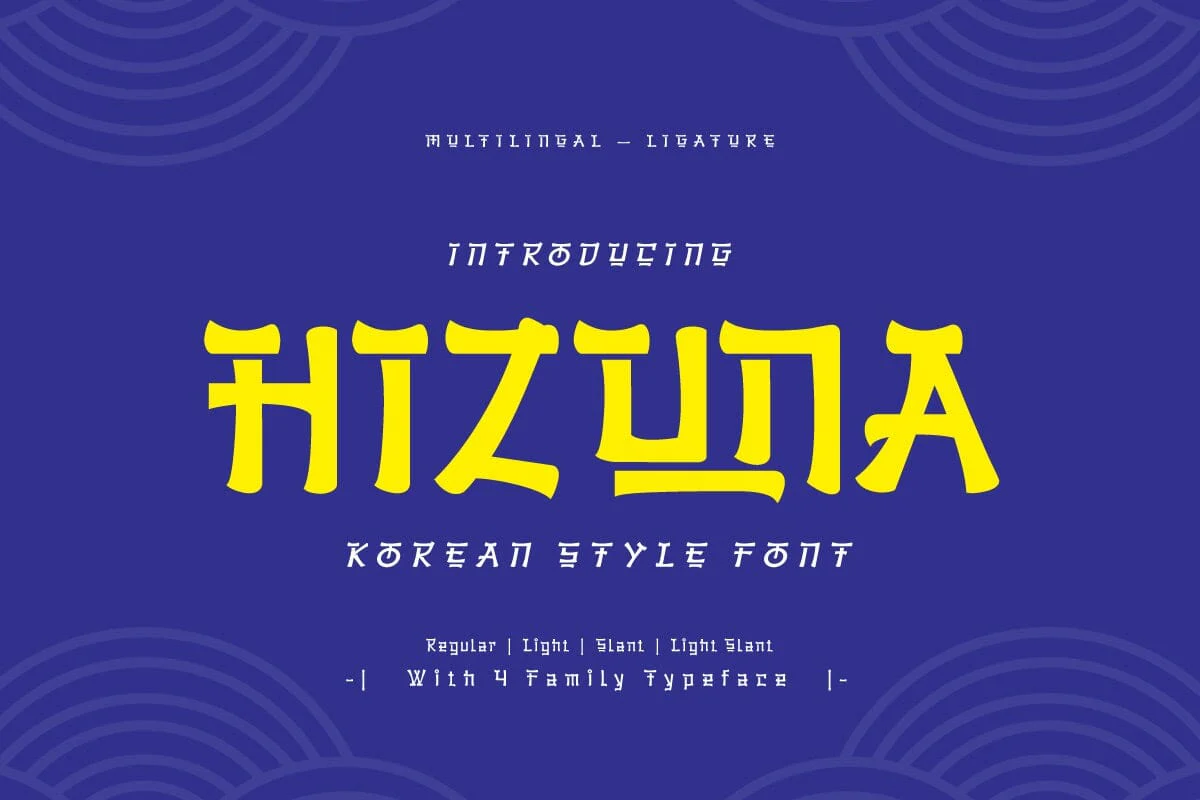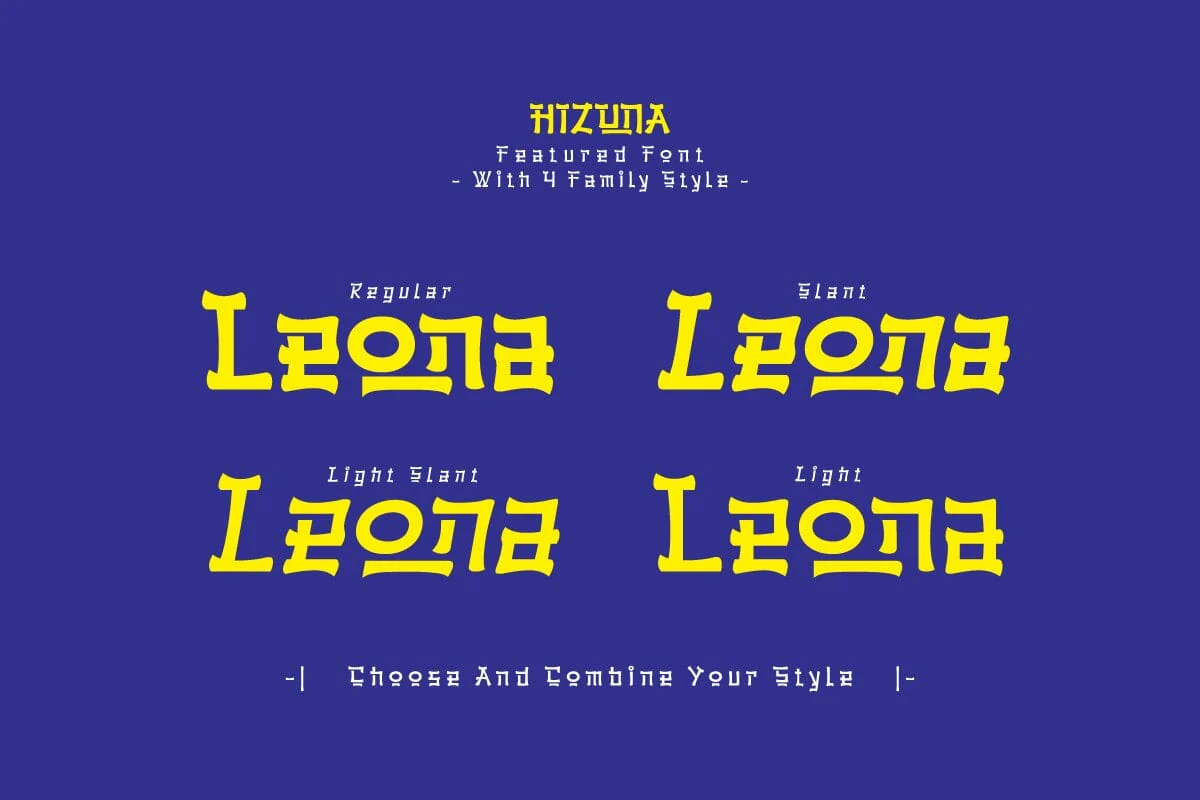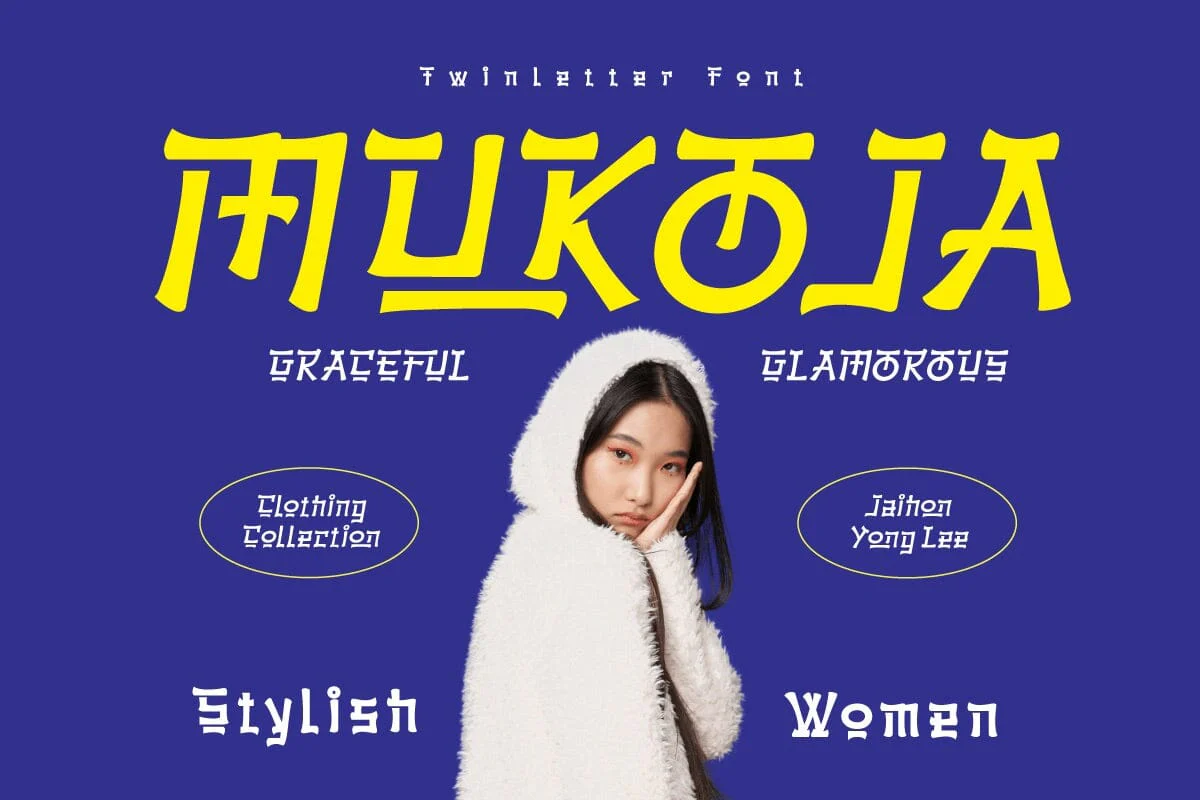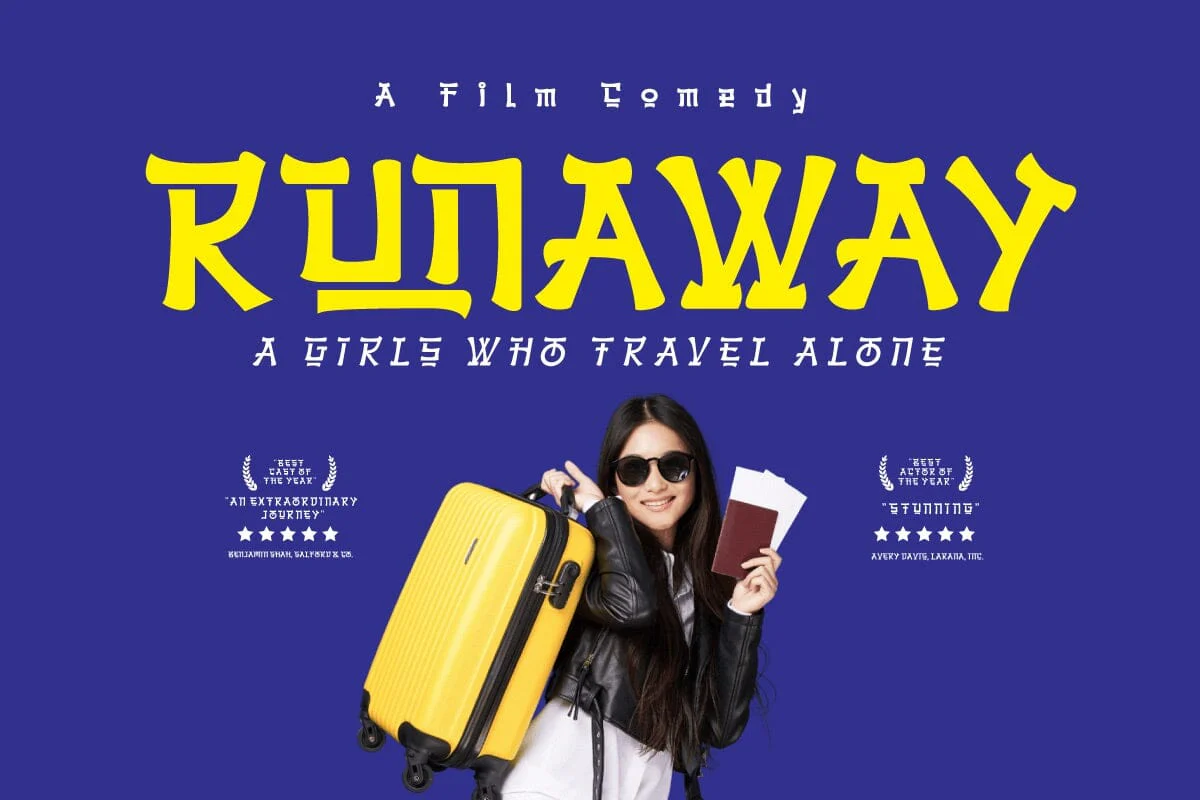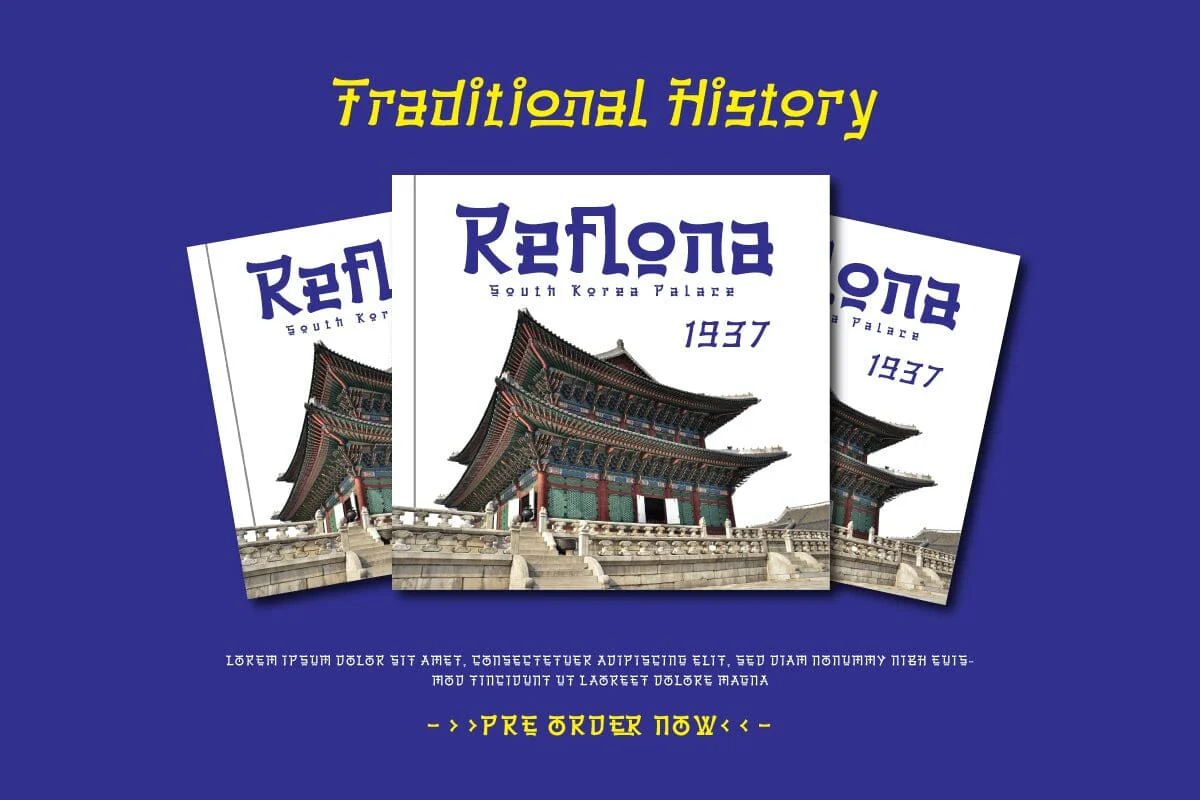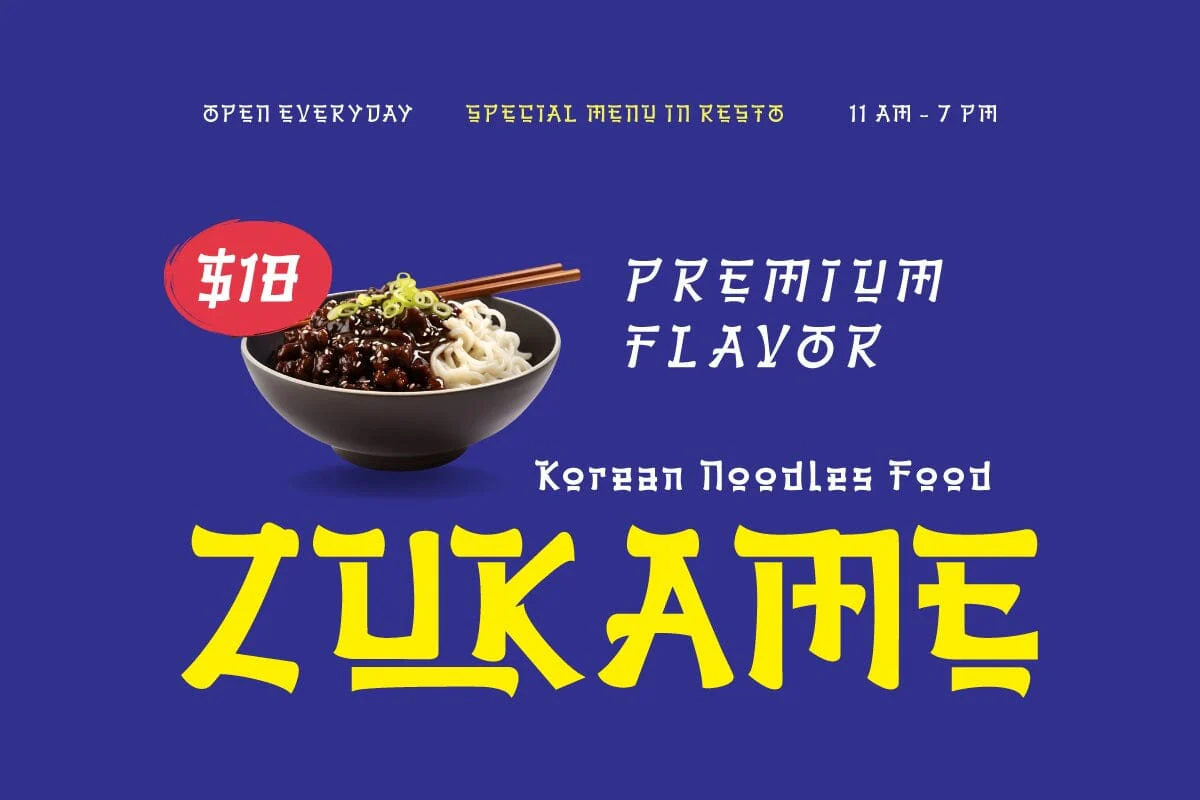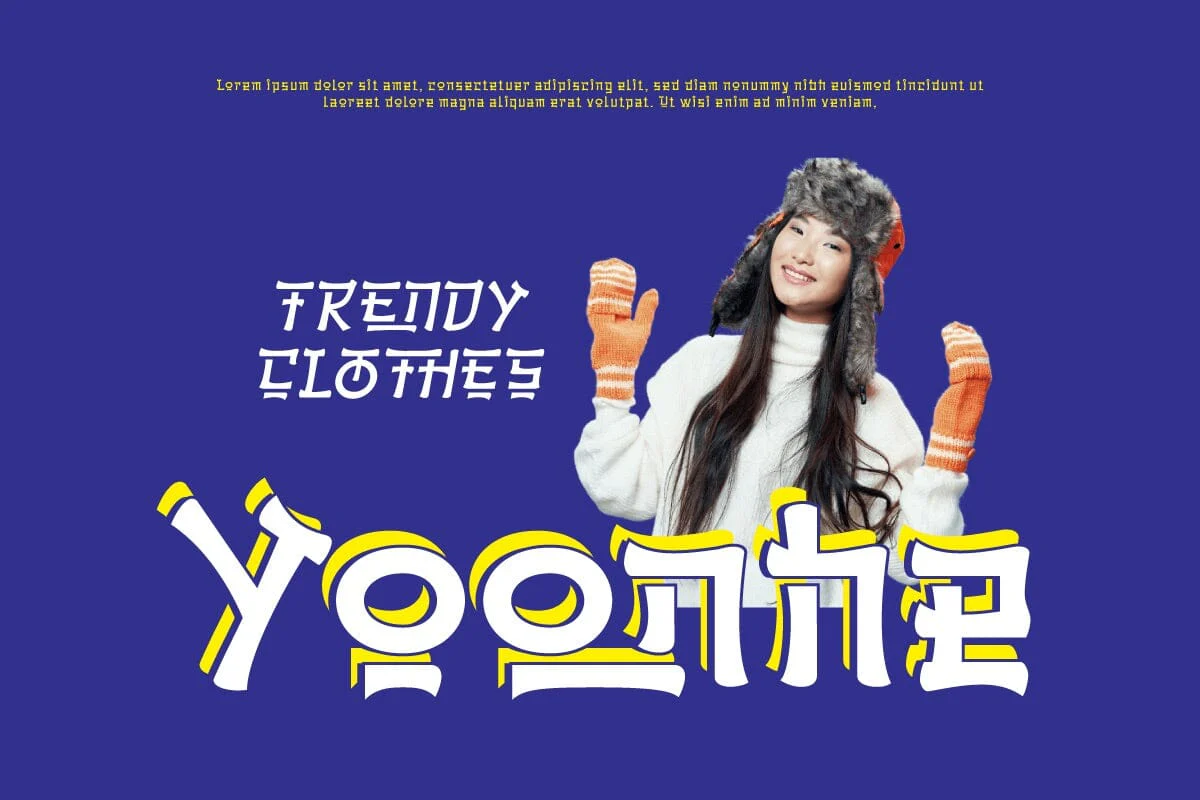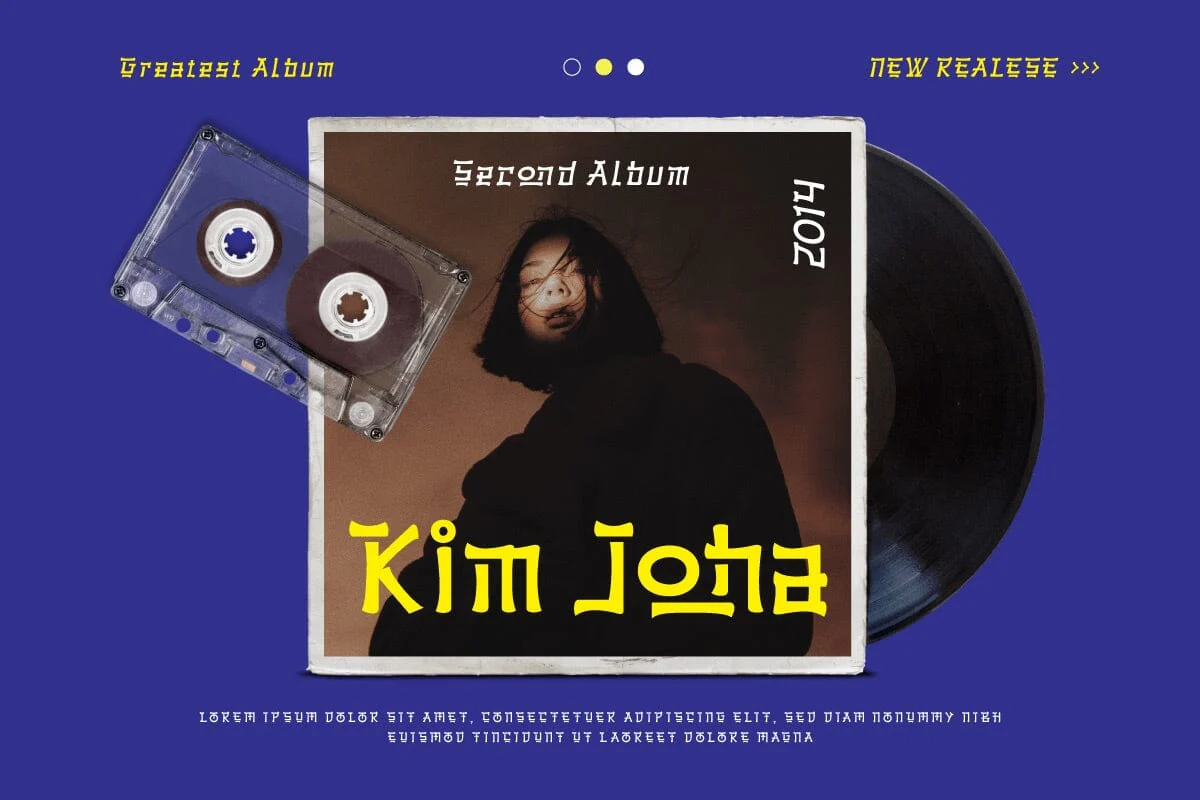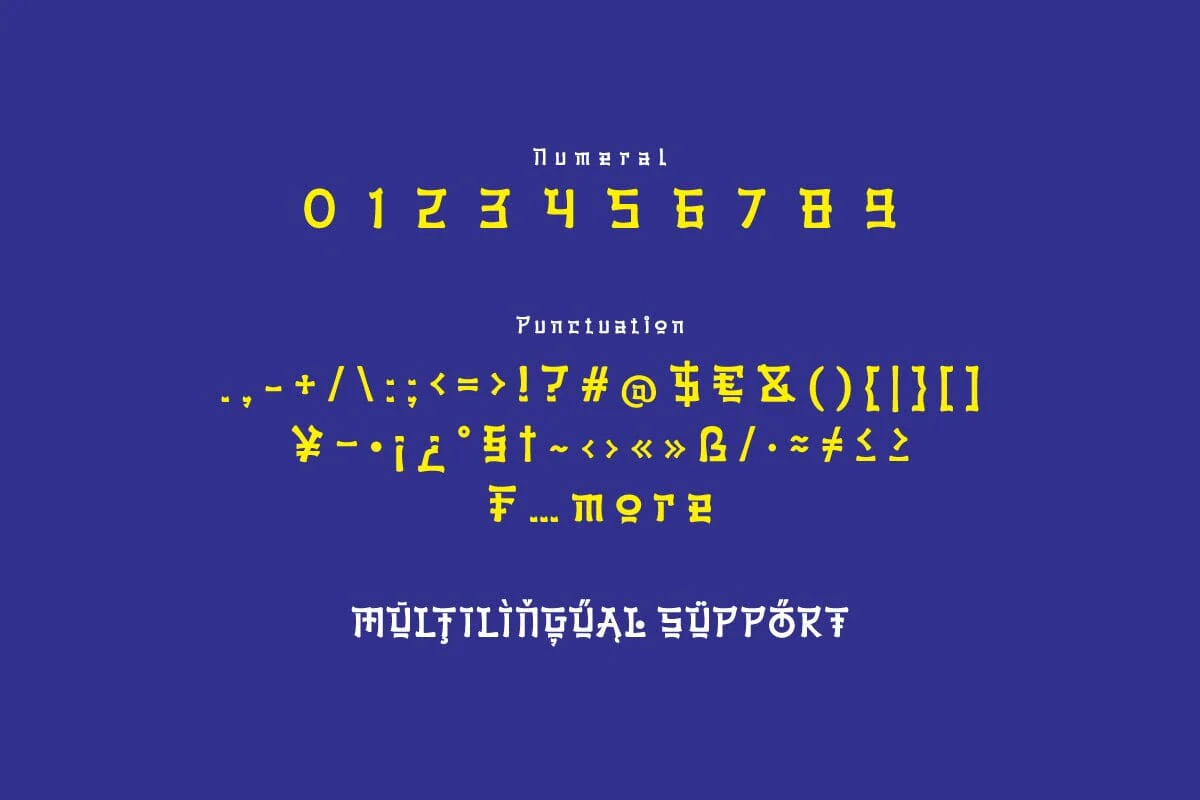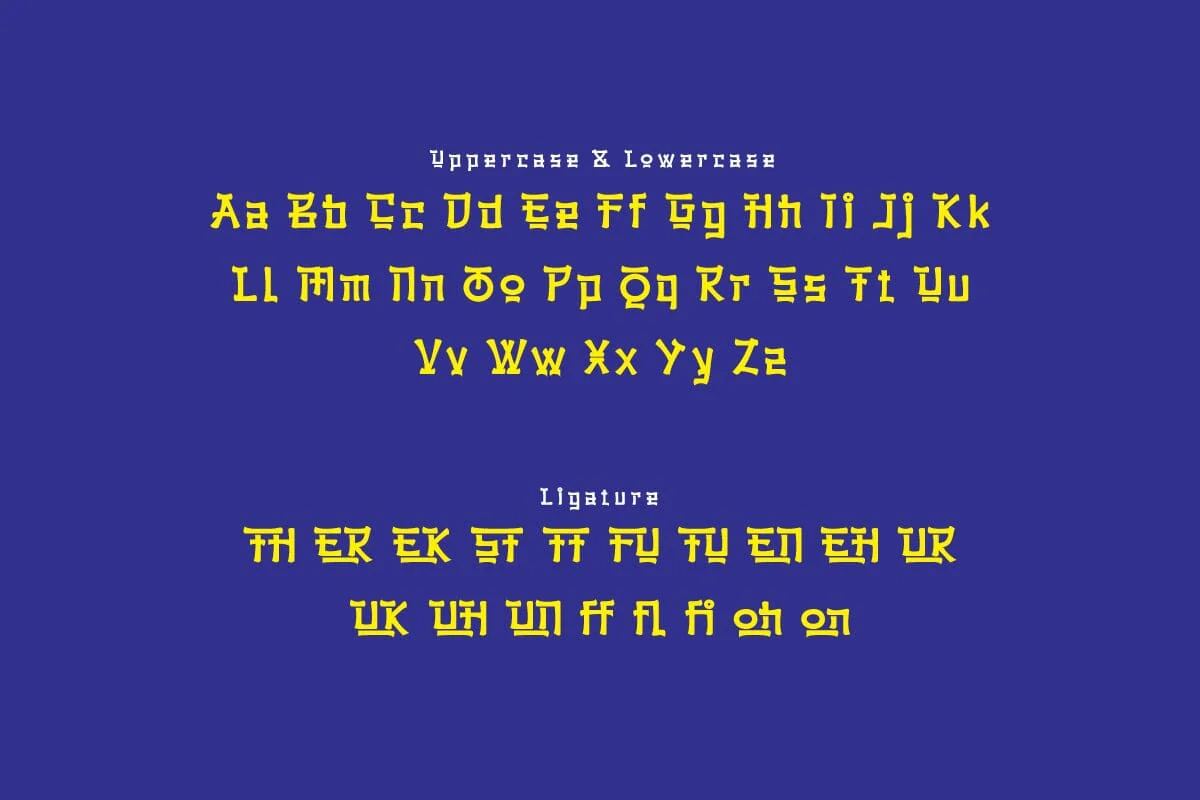
Hizuna - Korean Style Font
Embrace Korean elegance with Hizuna, a font that combines tradition with a modern twist. With each curve of the letters reflecting delicacy and beauty, Hizuna takes you on a mesmerizing journey through Korea's rich culture.
Hizuna font with a Korean font style is the right choice for branding projects, logo typography, and special events that want to embrace the beauty of Asia. The classic but unique design gives each piece a different and charming touch.
Let Hizuna take you on a journey through the wonders of Korean culture. With this font, bring stunning beauty to your designs, making every project a representation of timeless beauty.
Embrace Korean elegance with Hizuna, a font that combines tradition with a modern twist. With each curve of the letters reflecting delicacy and beauty, Hizuna takes you on a mesmerizing journey through Korea's rich culture.
Hizuna font with a Korean font style is the right choice for branding projects, logo typography, and special events that want to embrace the beauty of Asia. The classic but unique design gives each piece a different and charming touch.
Let Hizuna take you on a journey through the wonders of Korean culture. With this font, bring stunning beauty to your designs, making every project a representation of timeless beauty.